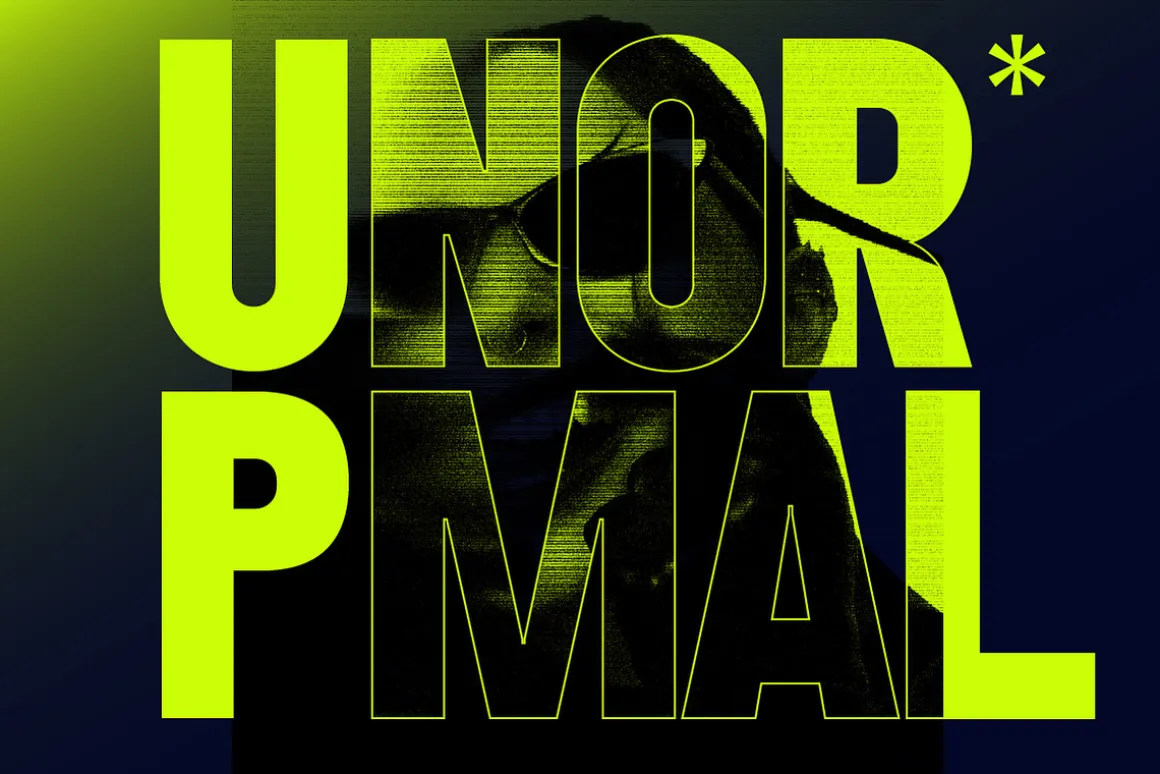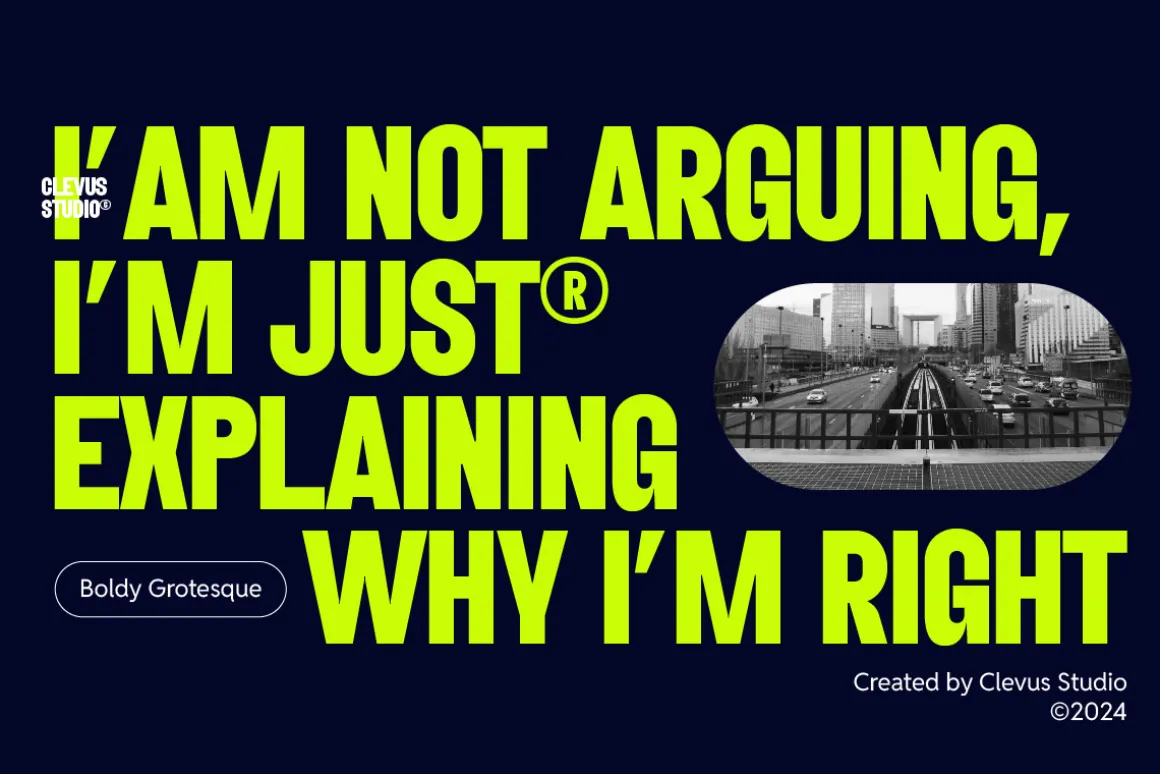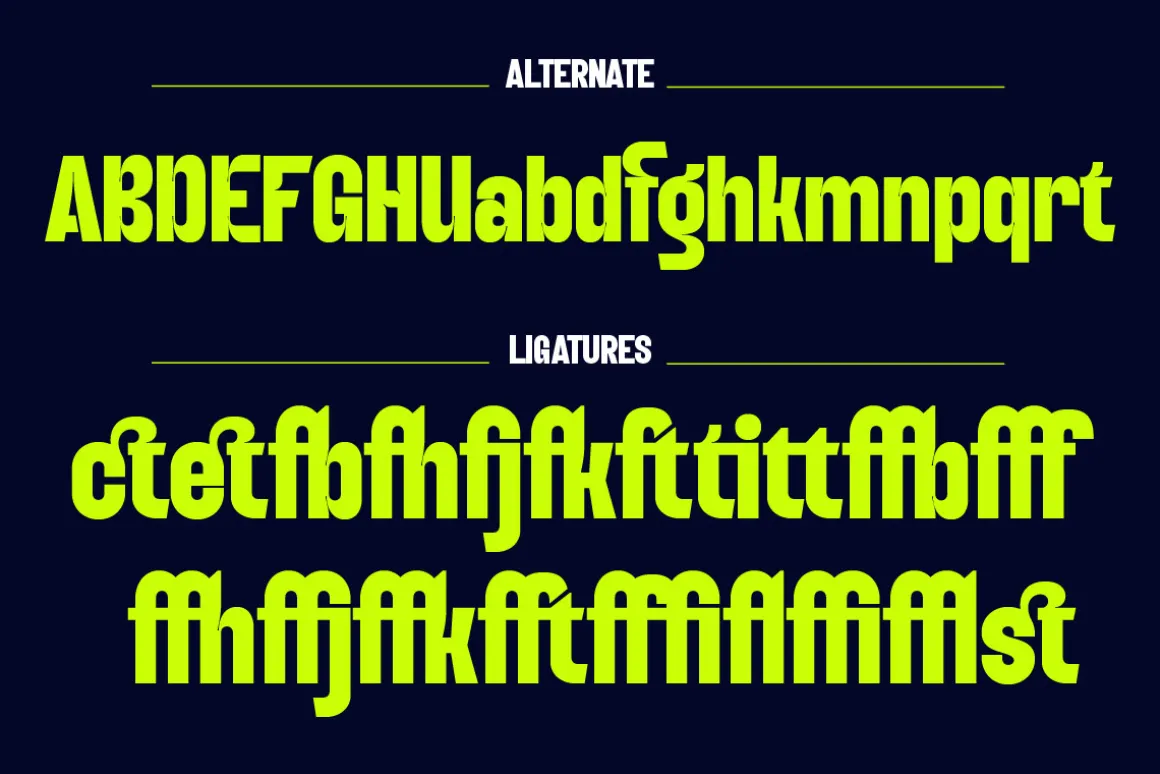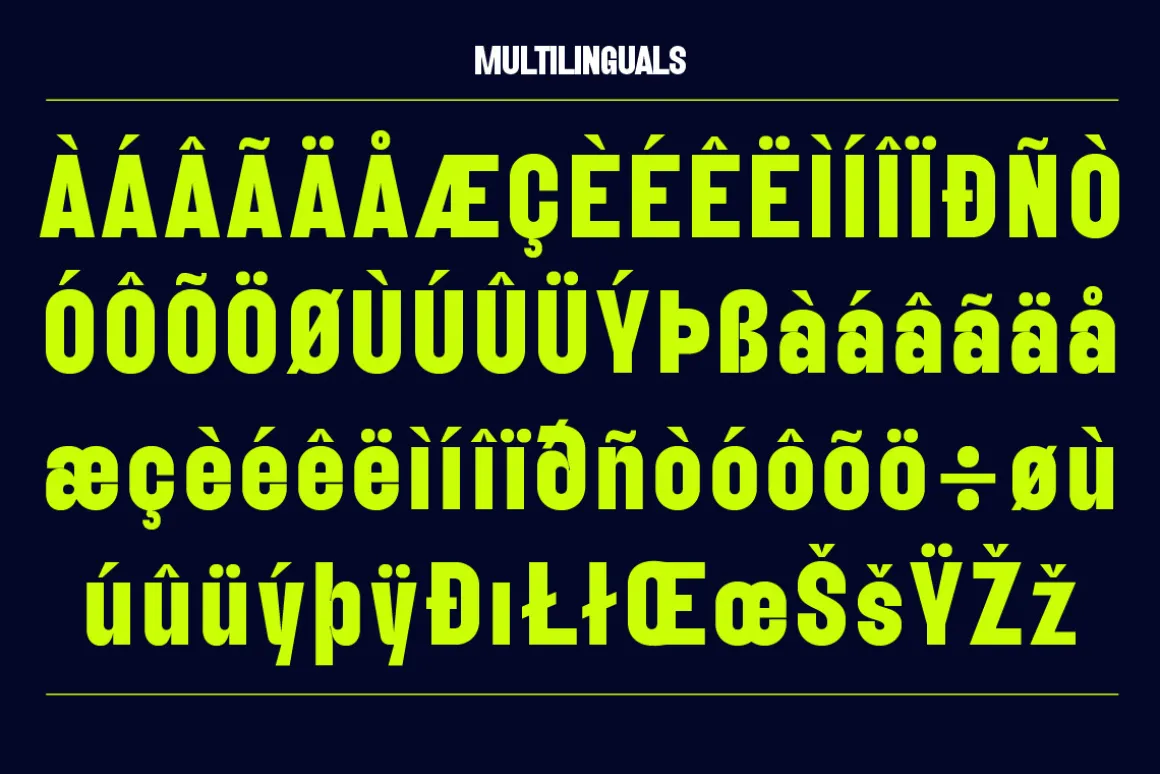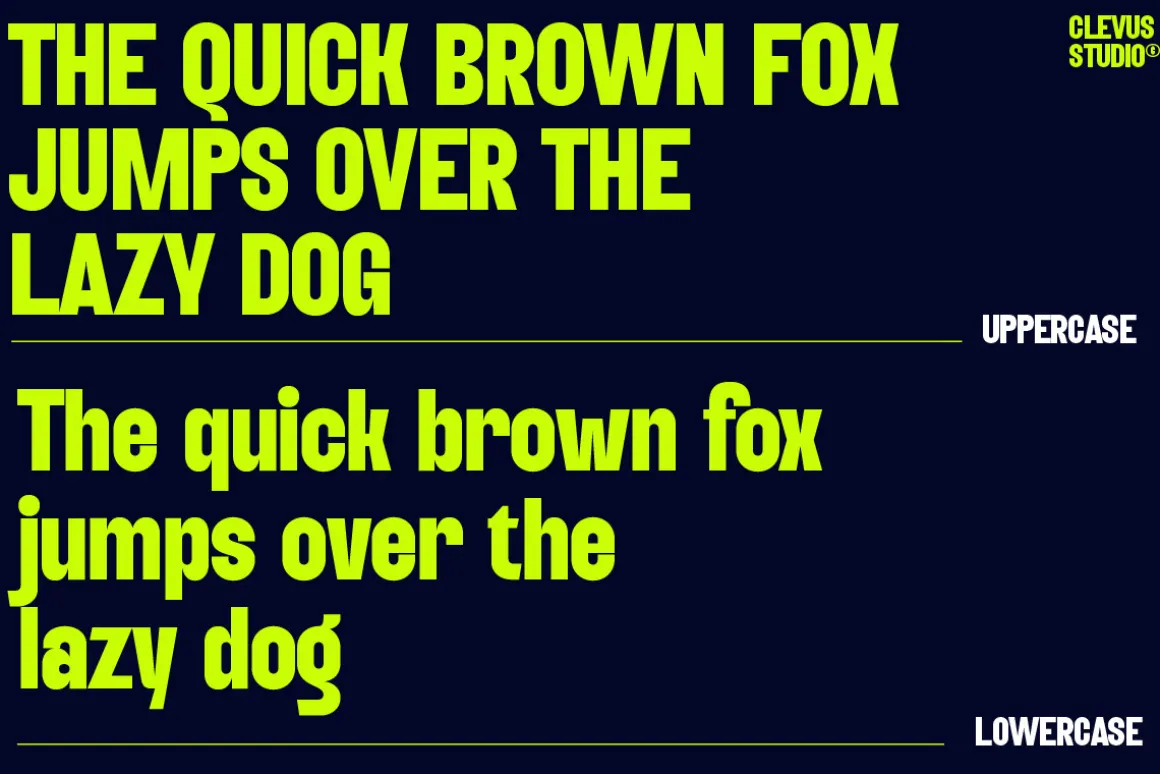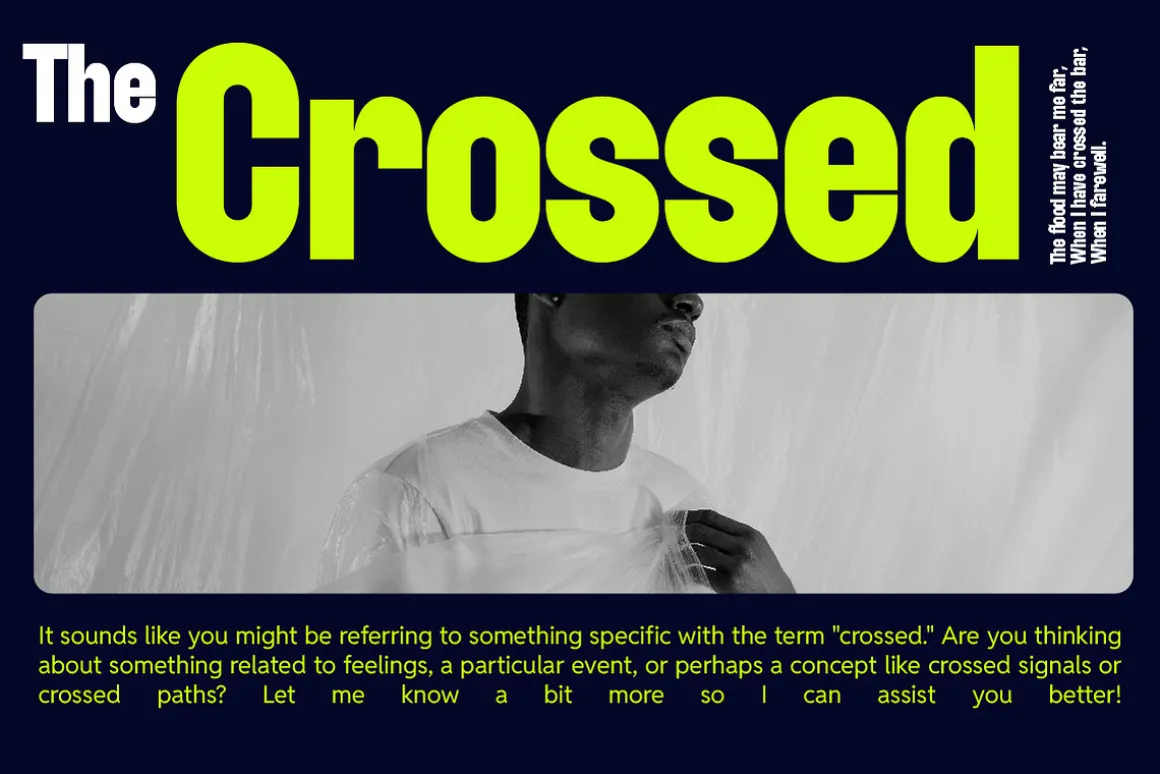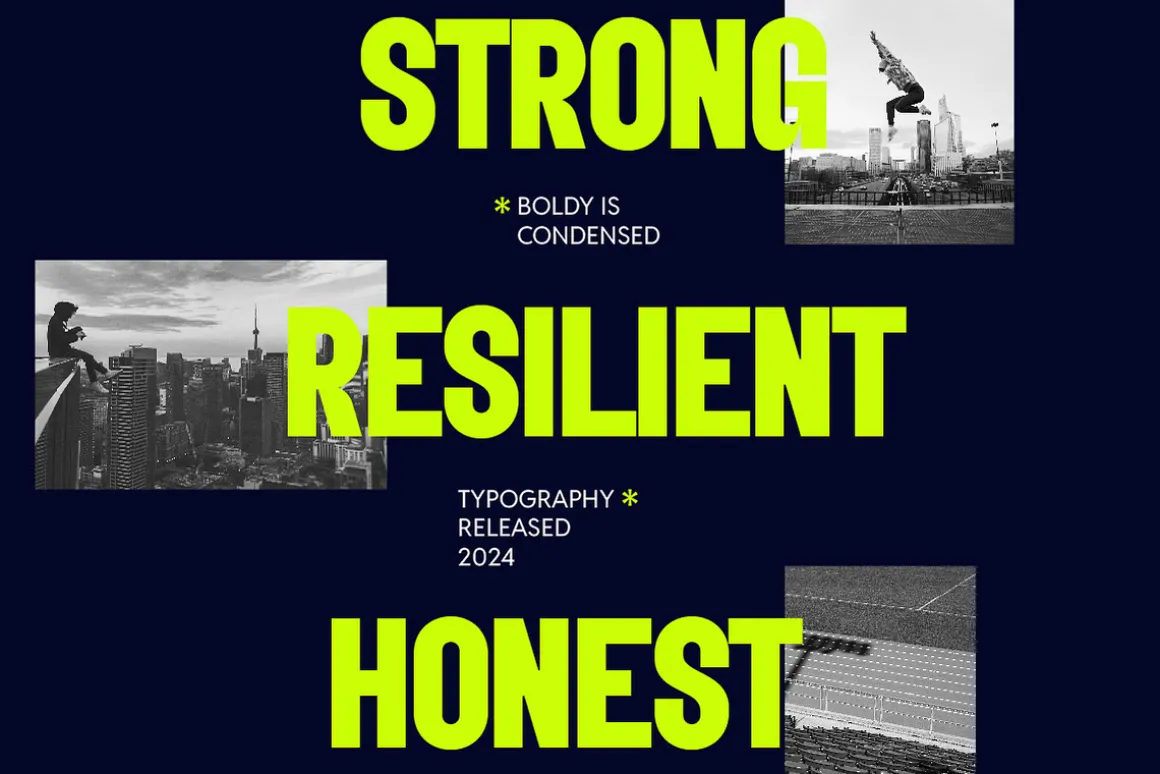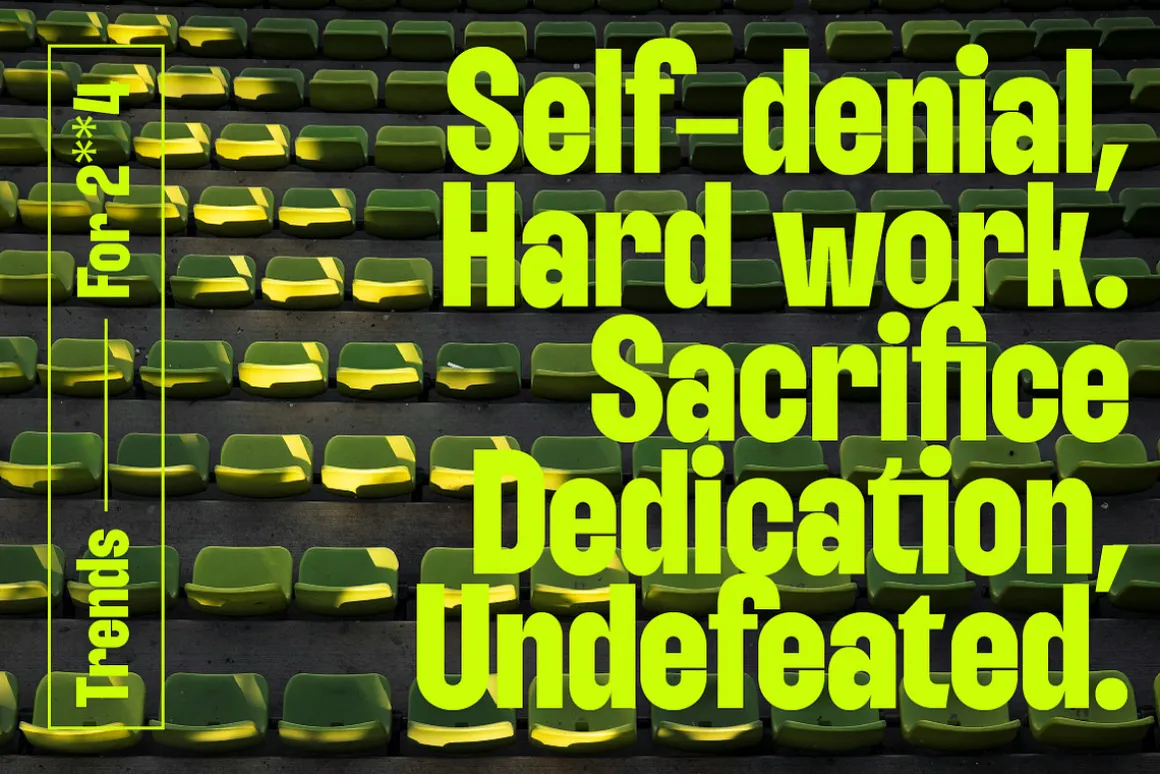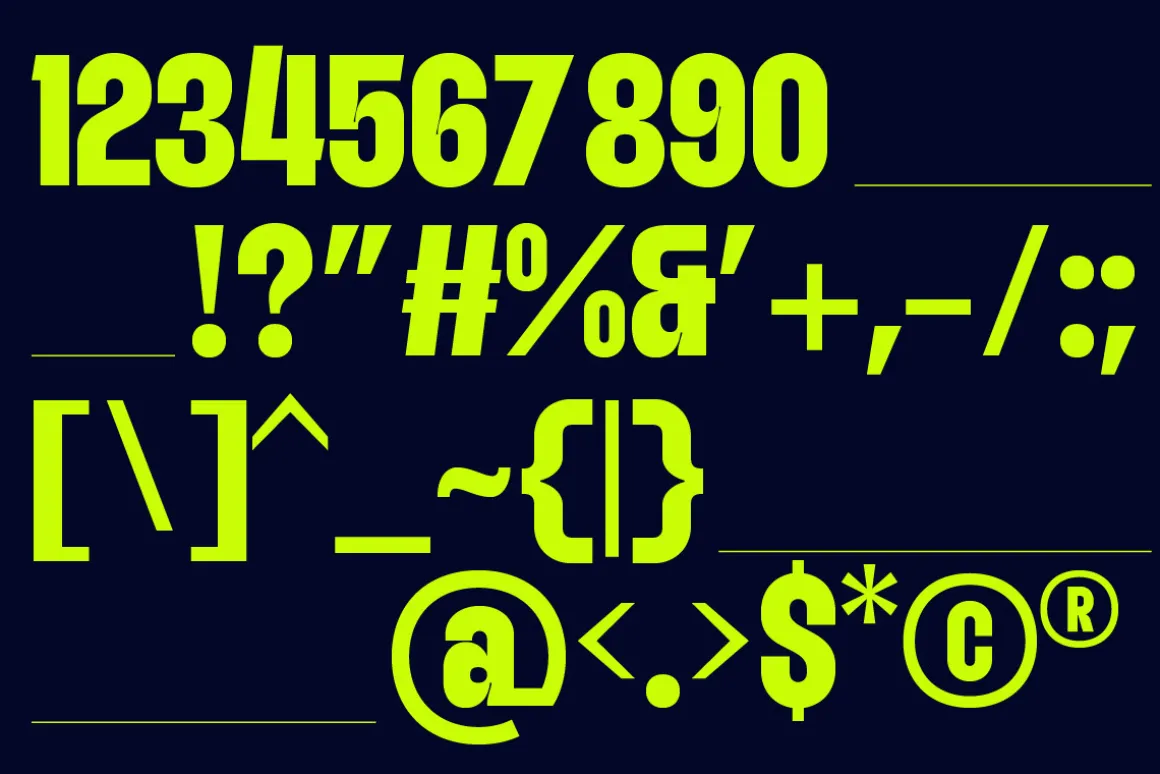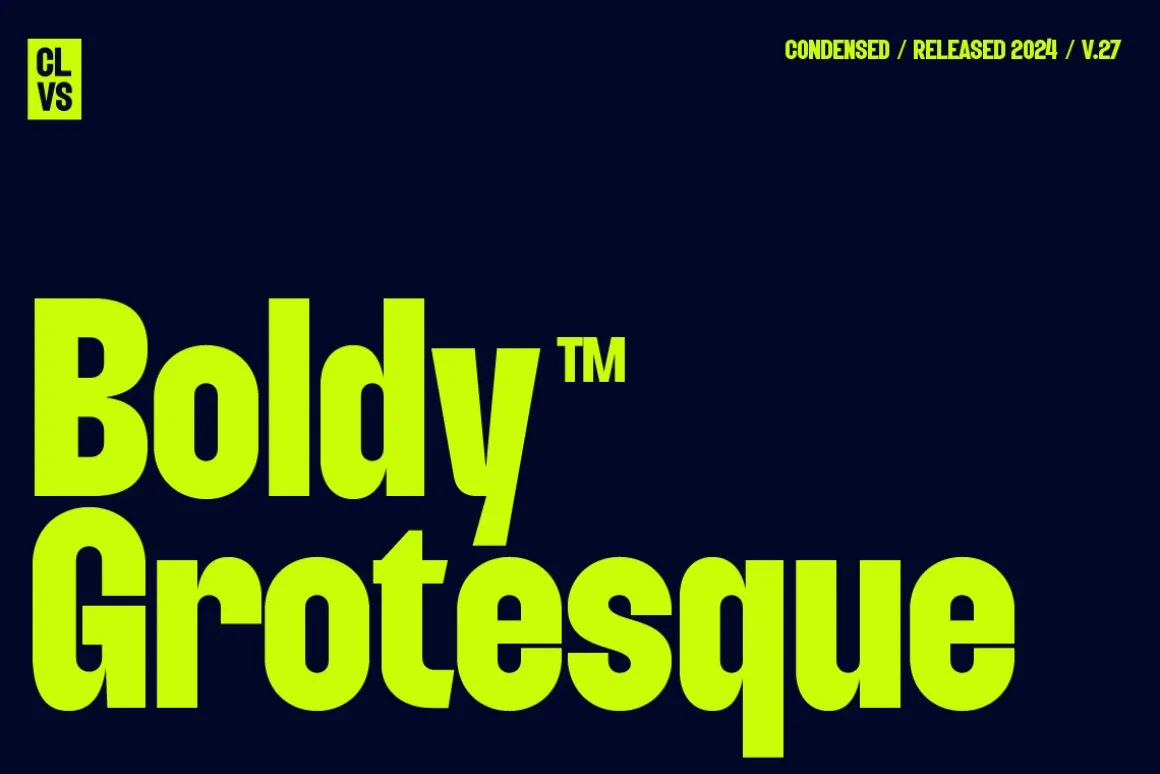
Proudly present Boldy Grotesque Font, is a modern and bold condensed font inspired by classic grotesque typefaces.
Boldy Grotesque equipped with several OpenType. Have 40 unique alternates and ligatures. Comes with alternatives and ligatures, and helps to create stunning logos, quotes, posts, blog posts, branding projects, magazine imagery, wedding invitations, poster and much more.
- Lettres, numbers, symbols, and punctuation
- 40 alternates and ligatures
- Multilingual Support
Language Support: Danish, English, Estonian, Filipino, Finnish, French, Friulian, Galician, German, Gusii, Indonesian, Irish, Italian, Luxembourgish, Norwegian Bokmål, Norwegian Nynorsk, Nyankole, Oromo, Portuguese, Romansh, Rombo, Spanish, Swedish, Swiss-German, Uzbek (Latin)